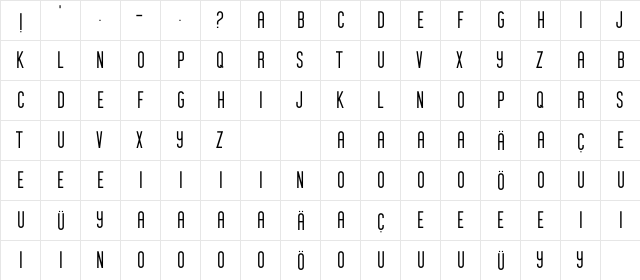
Galata Sans Regular
| Foundry | Krafti Lab |
| Designer | Onur Cem TAN |
Design Context for Galata Sans Typeface
Galata Sans is a composed and adaptable typeface that performs quietly and consistently across a wide range of design contexts.